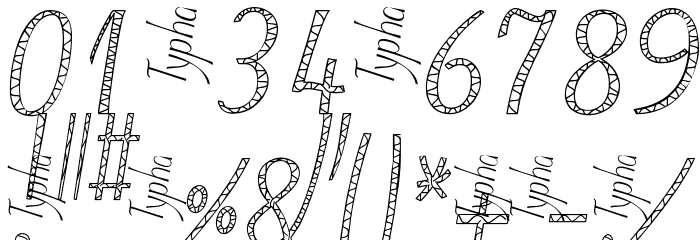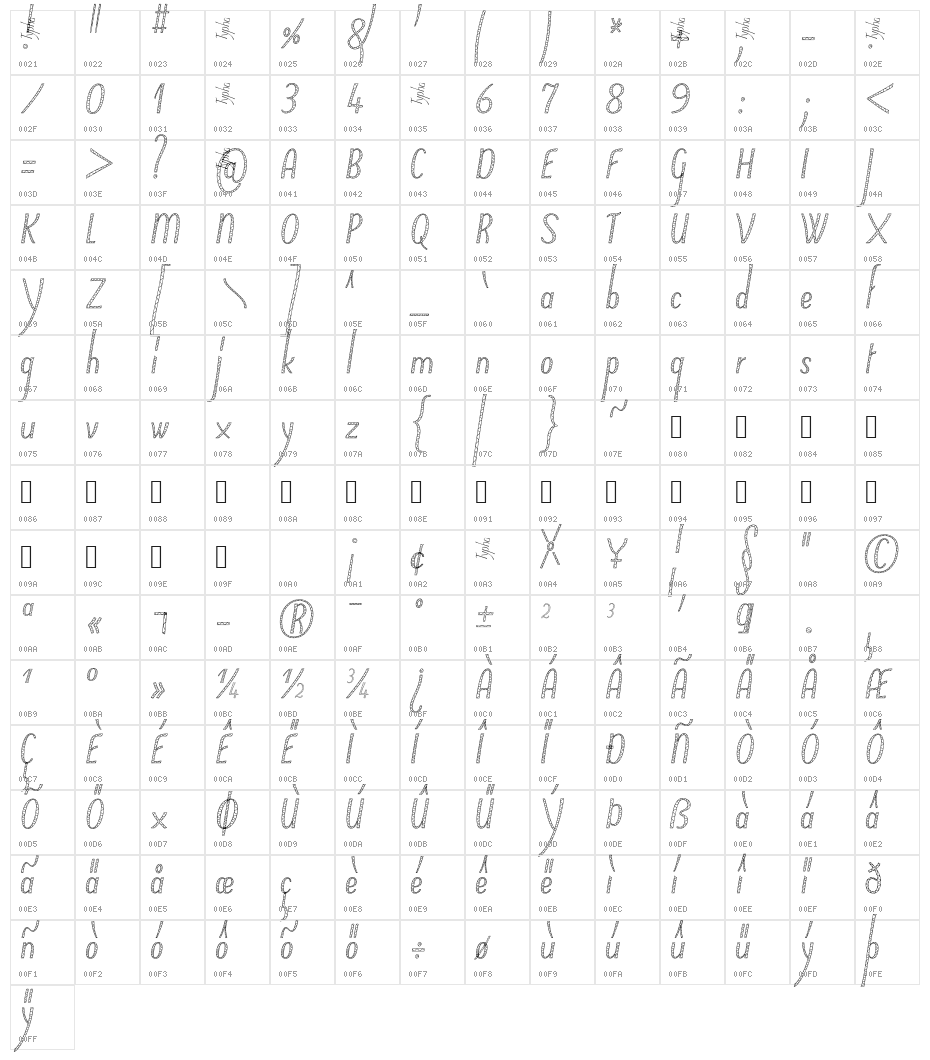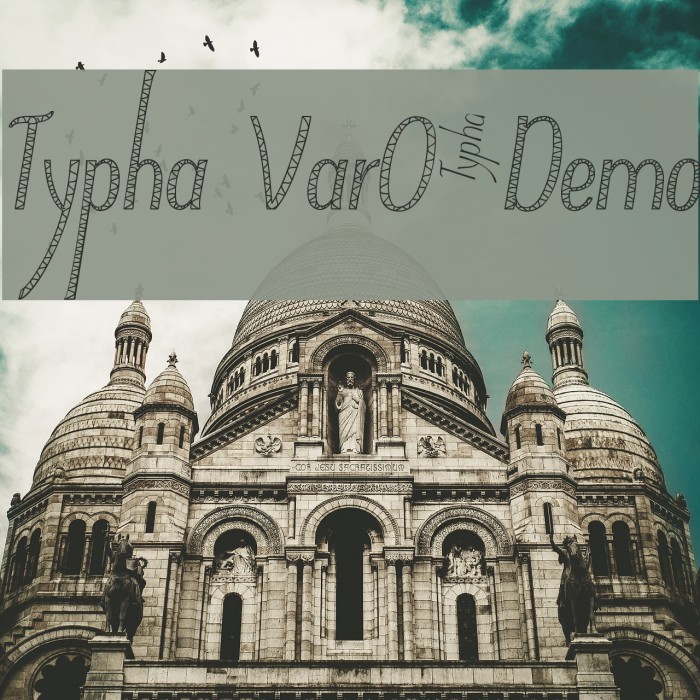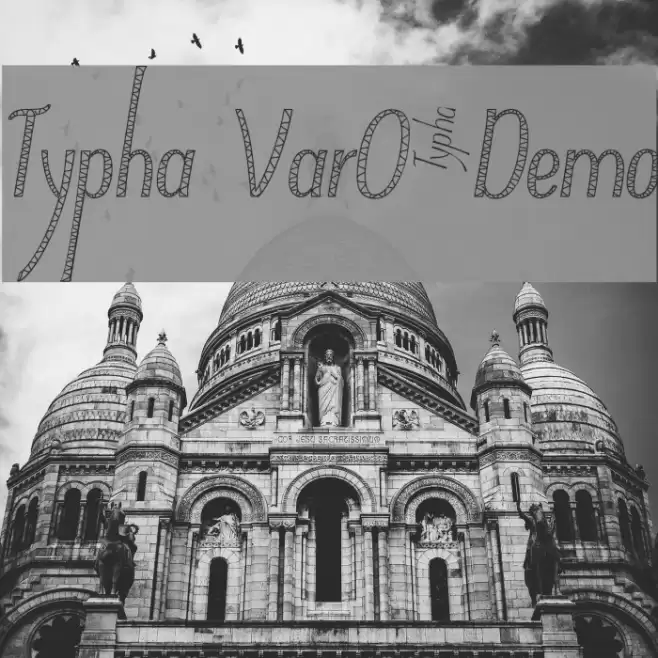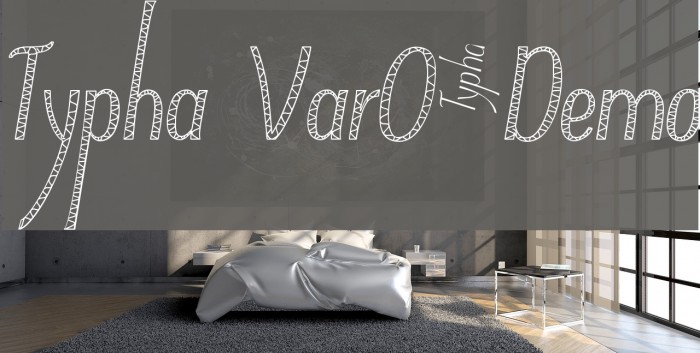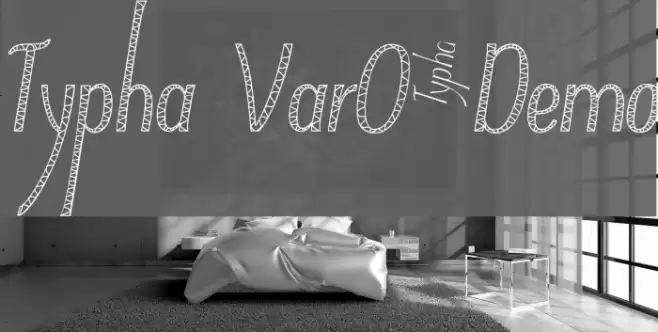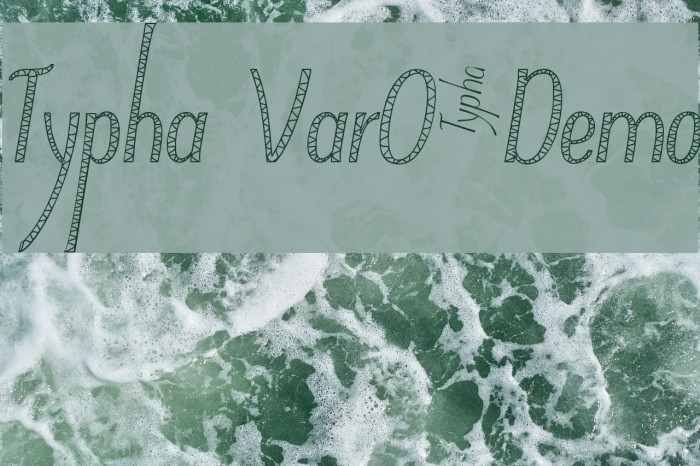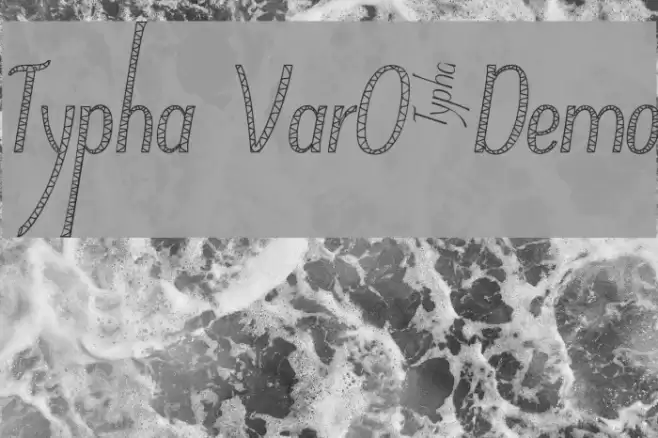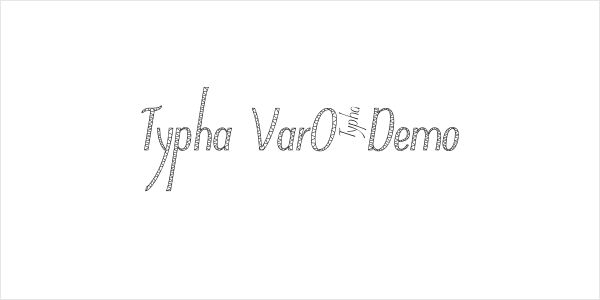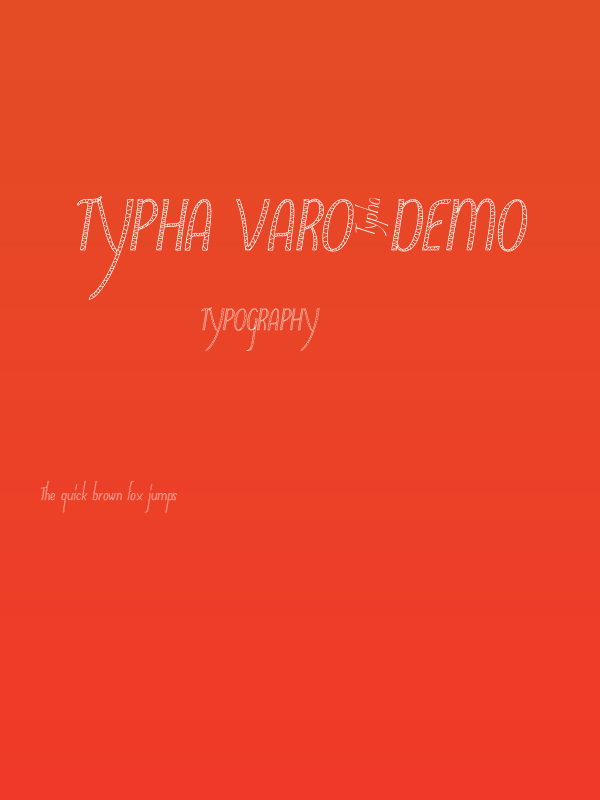
Typha Var05Demo Font
Typha Var05Demo Description
This font features a unique, decorative style with a playful and artistic flair. Each character is outlined with a bold, hand-drawn effect, filled with diagonal lines that create a textured appearance. The uppercase and lowercase letters maintain a consistent height, contributing to a uniform look. The numerals and special characters follow the same design, ensuring cohesion across all elements. This font's whimsical nature makes it stand out, offering a creative touch to any project.